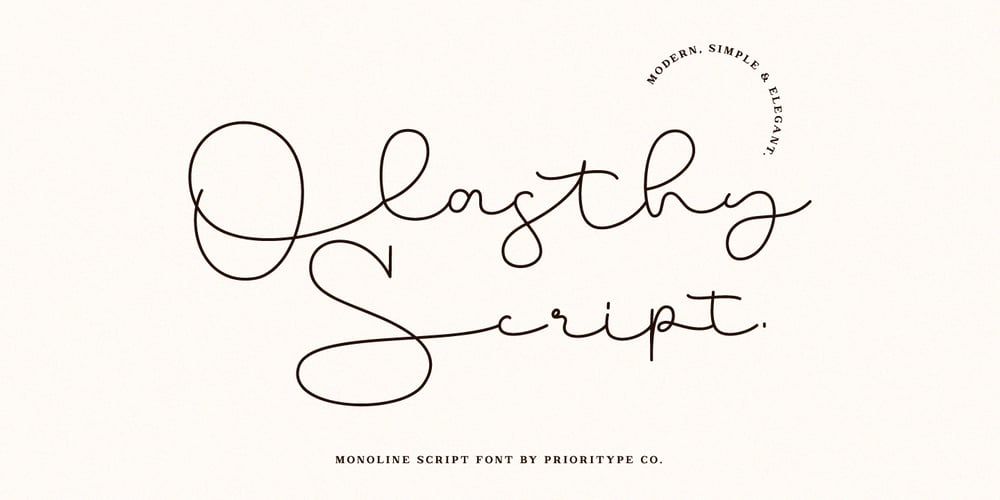
Olasthy Script Font Family was designed by Prio Nurokhim Aji and published by Prioritype. Olasthy Script contains 1 styles and family package options. Introducing.Say hello to the new typeface. “Olasthy Script” is a monoline script font with hand strokes. Simple but very beautiful. Perfect for branding designs, creative posts, business cards, logos and more. Features: Uppercase Lowercase Numeral Punctuation Multilingual Ligatures PUA Encoded. Thanks!